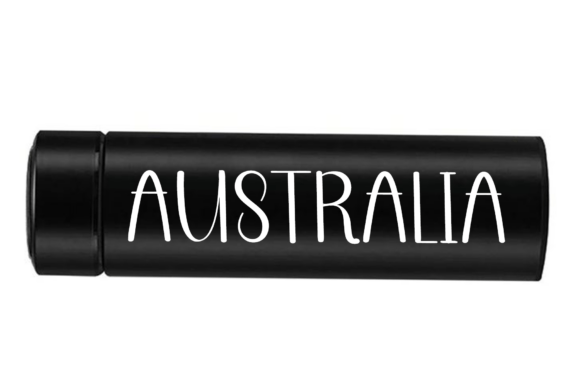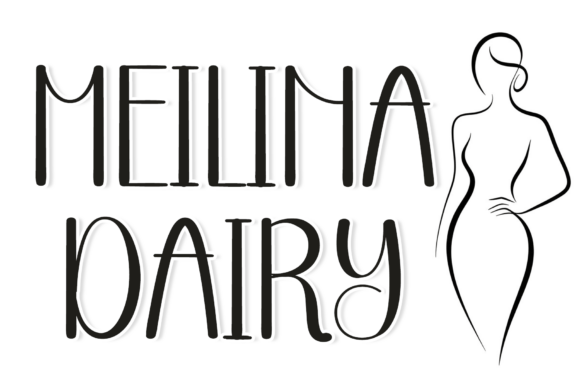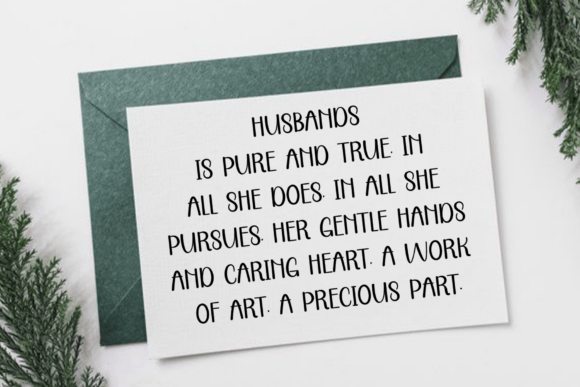
Introduction to Fashion Modeling Font
Fashion Modeling is a lovely and timeless handwritten font.
It is the best choice for creating eye-catching logos, branding, and quotes Every letter has a unique and beautiful touch, which will make your design come alive.
Key Features of Fashion Modeling Font
Why Choose Fashion Modeling Font?